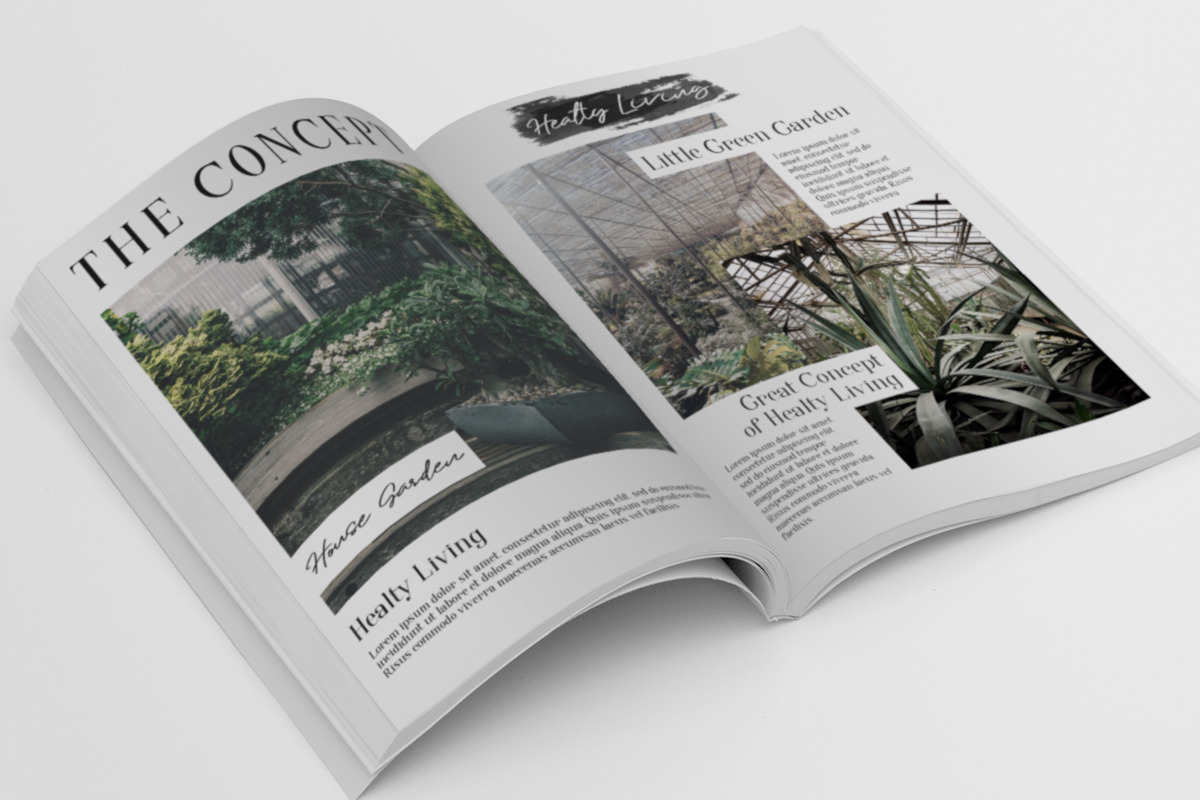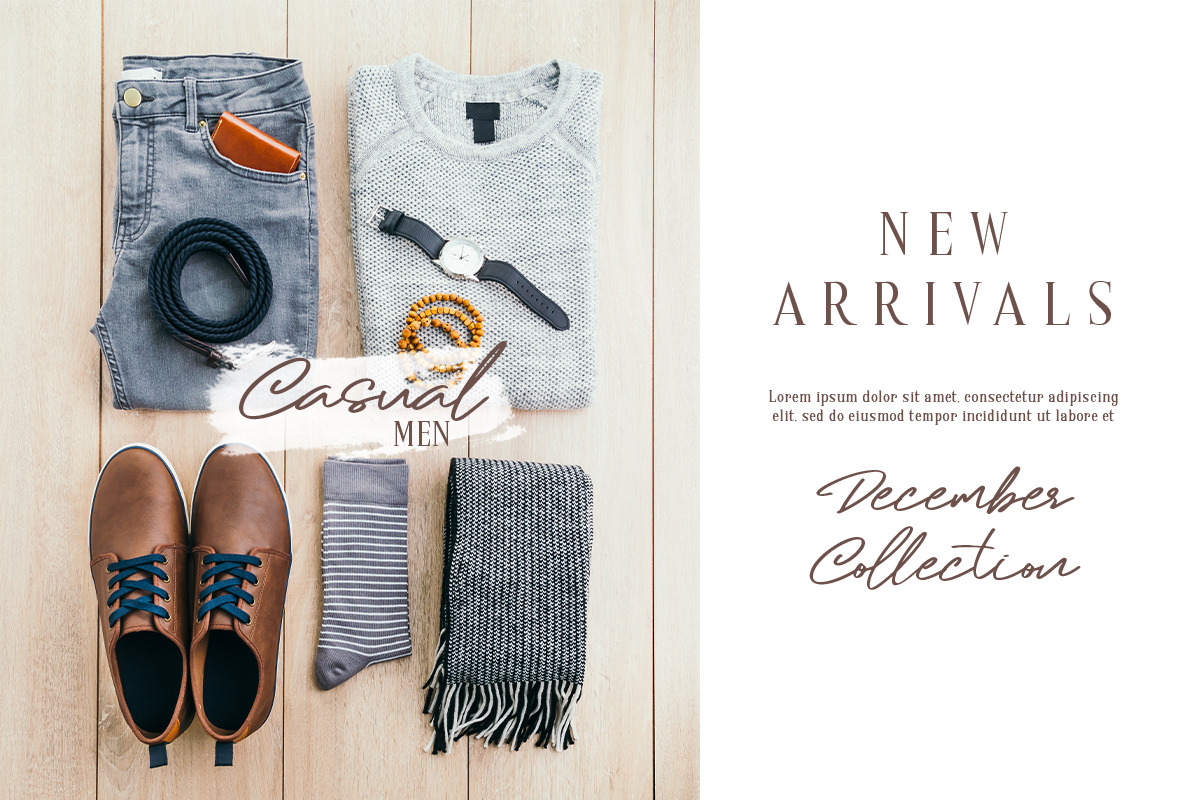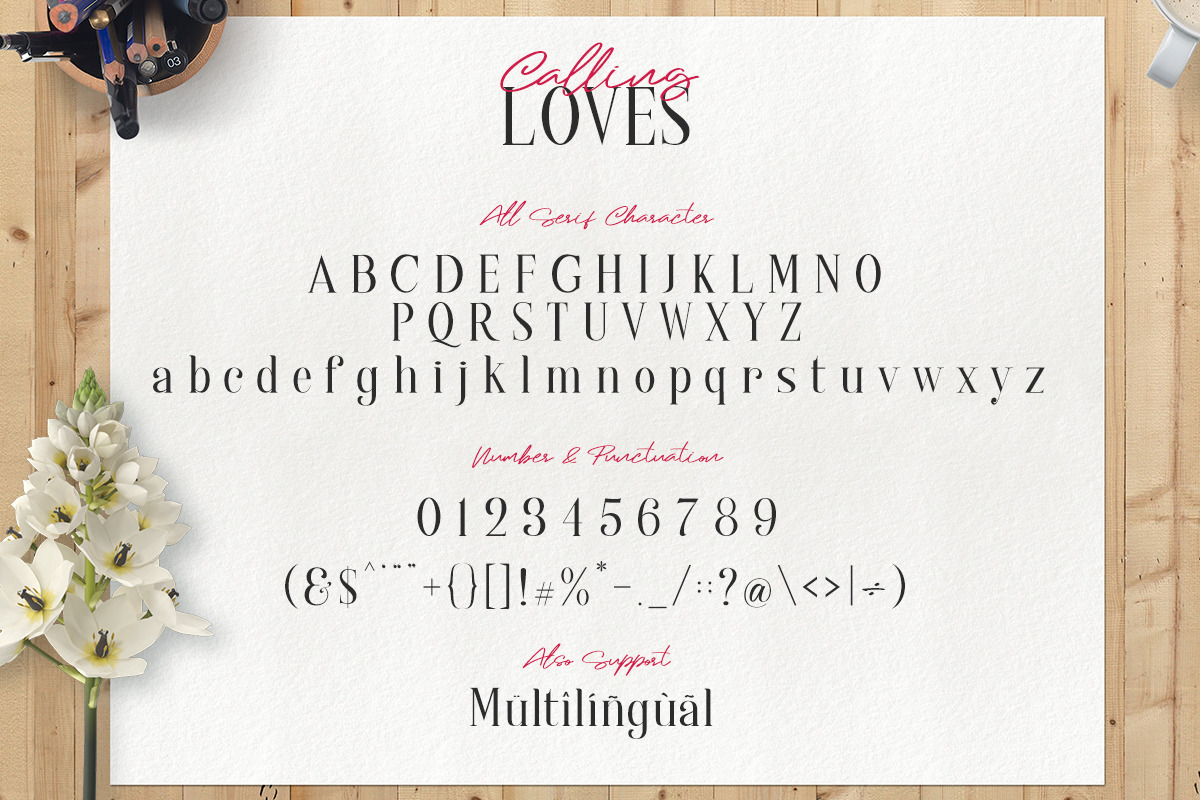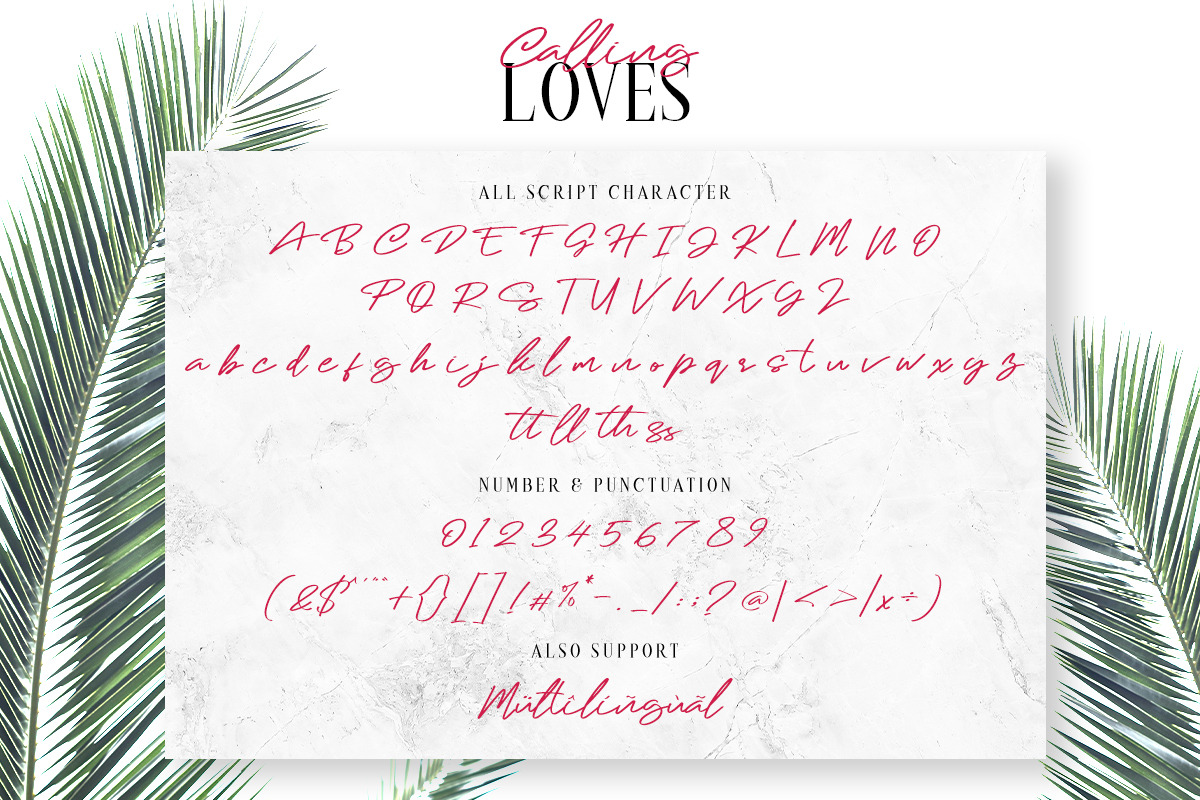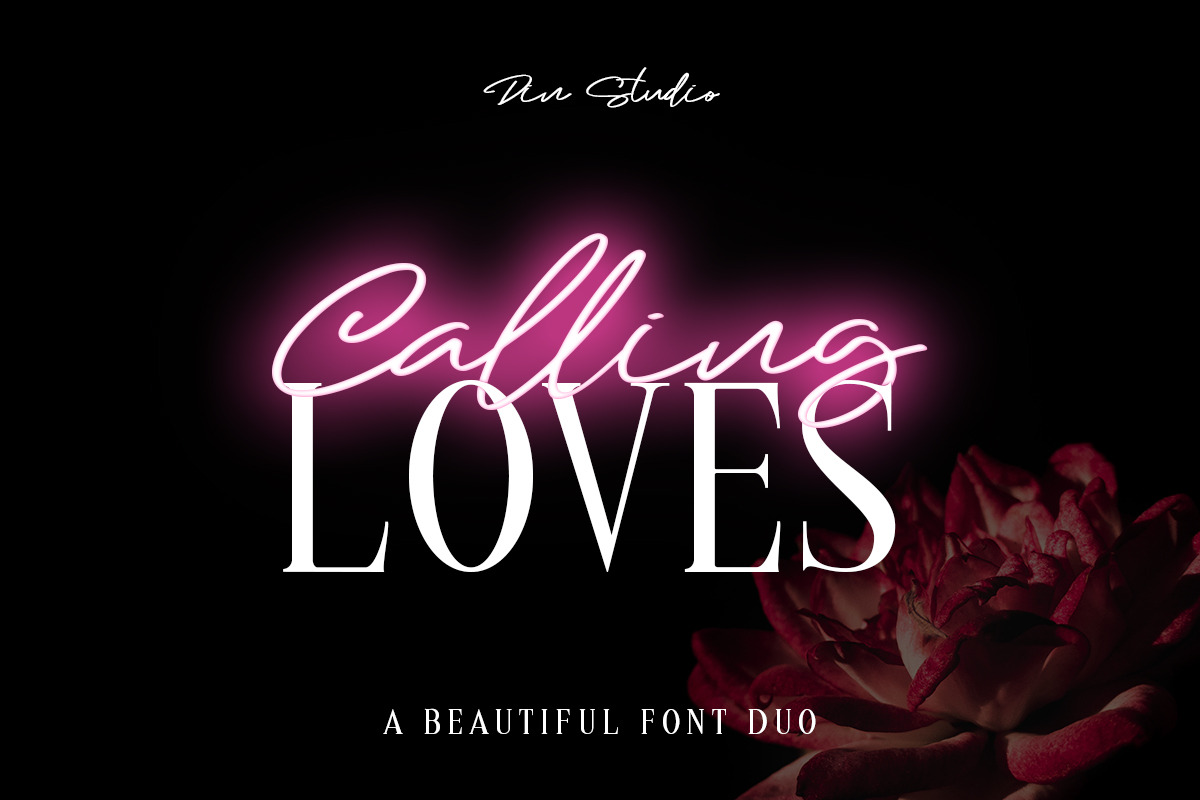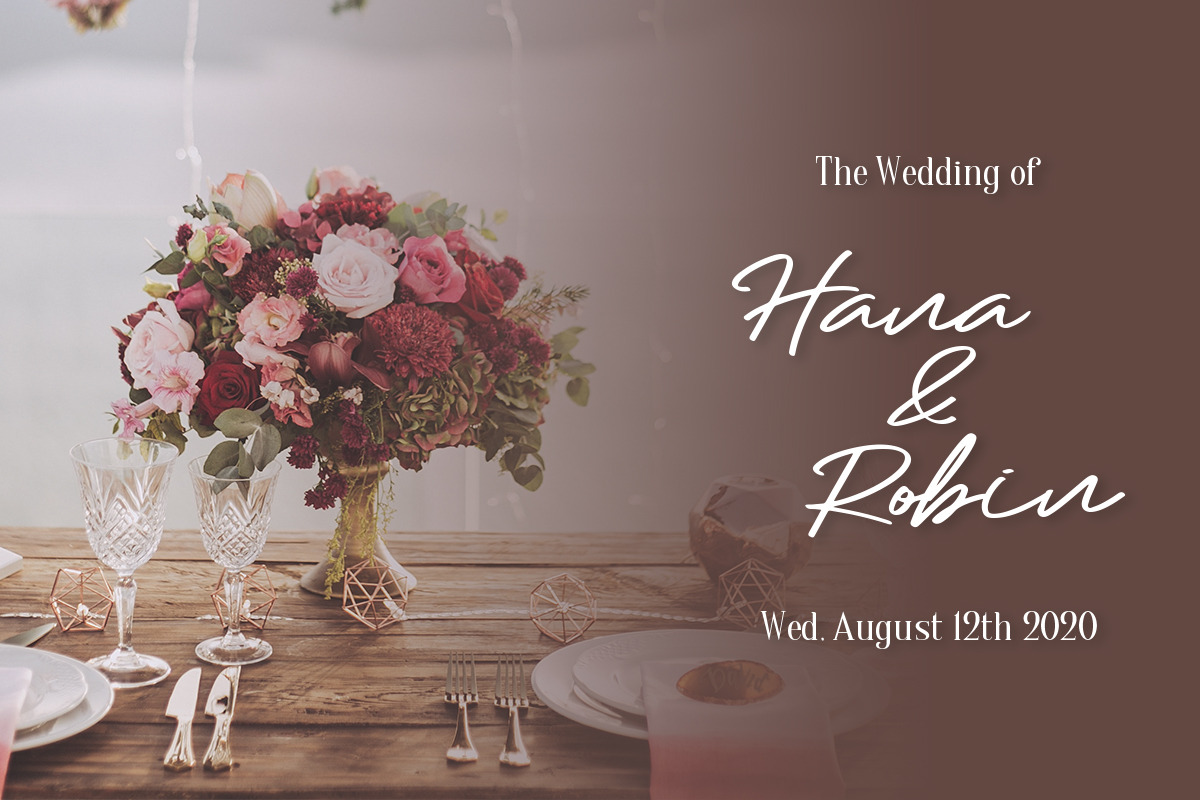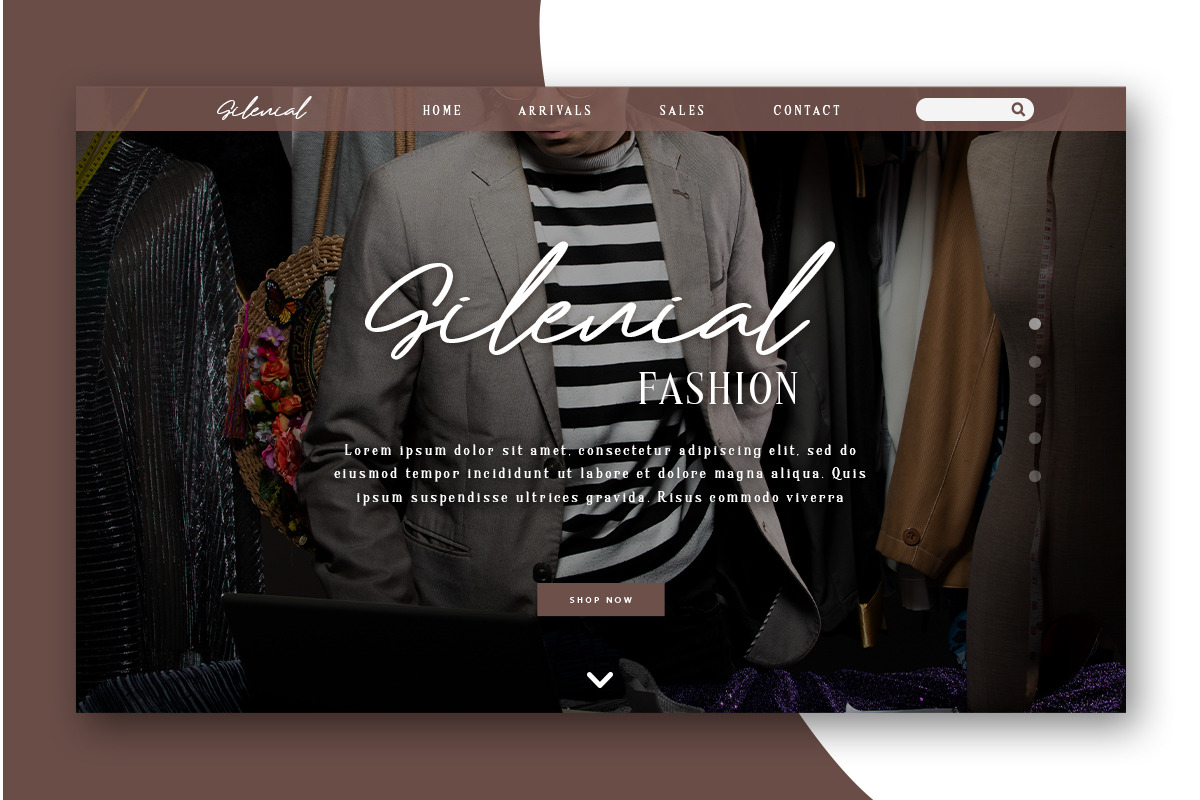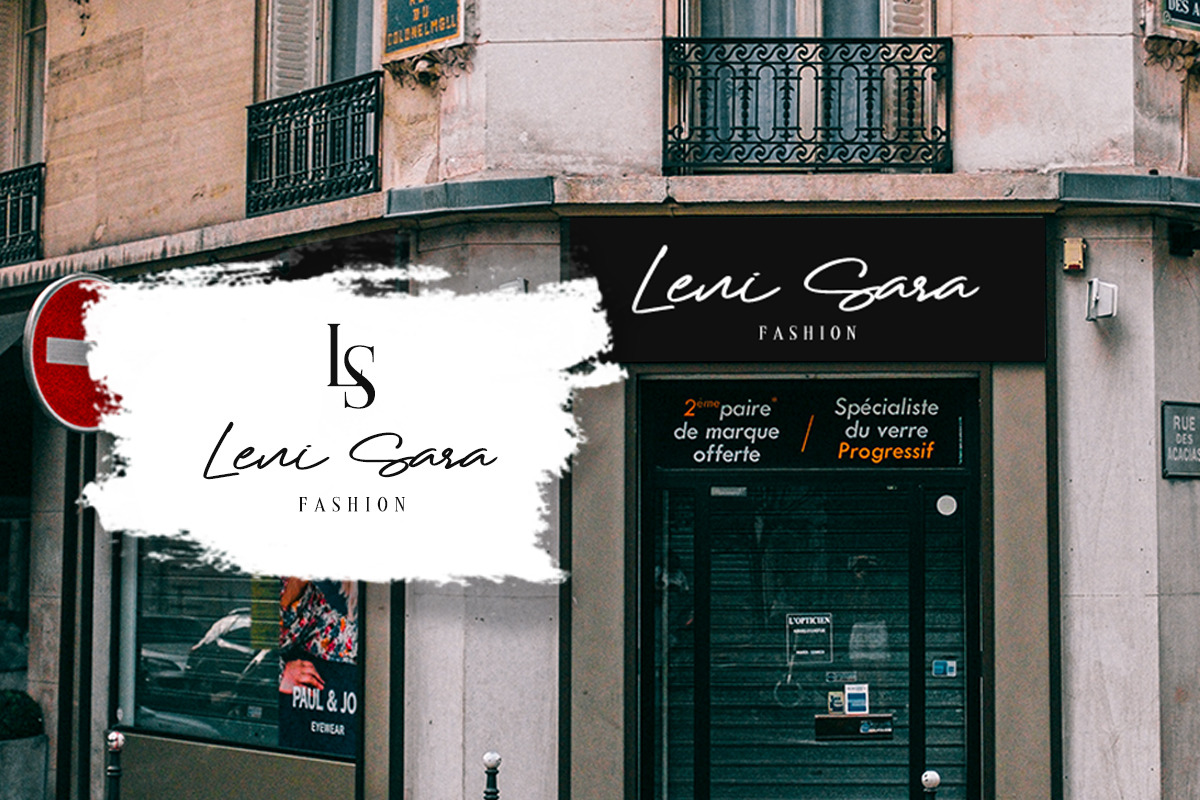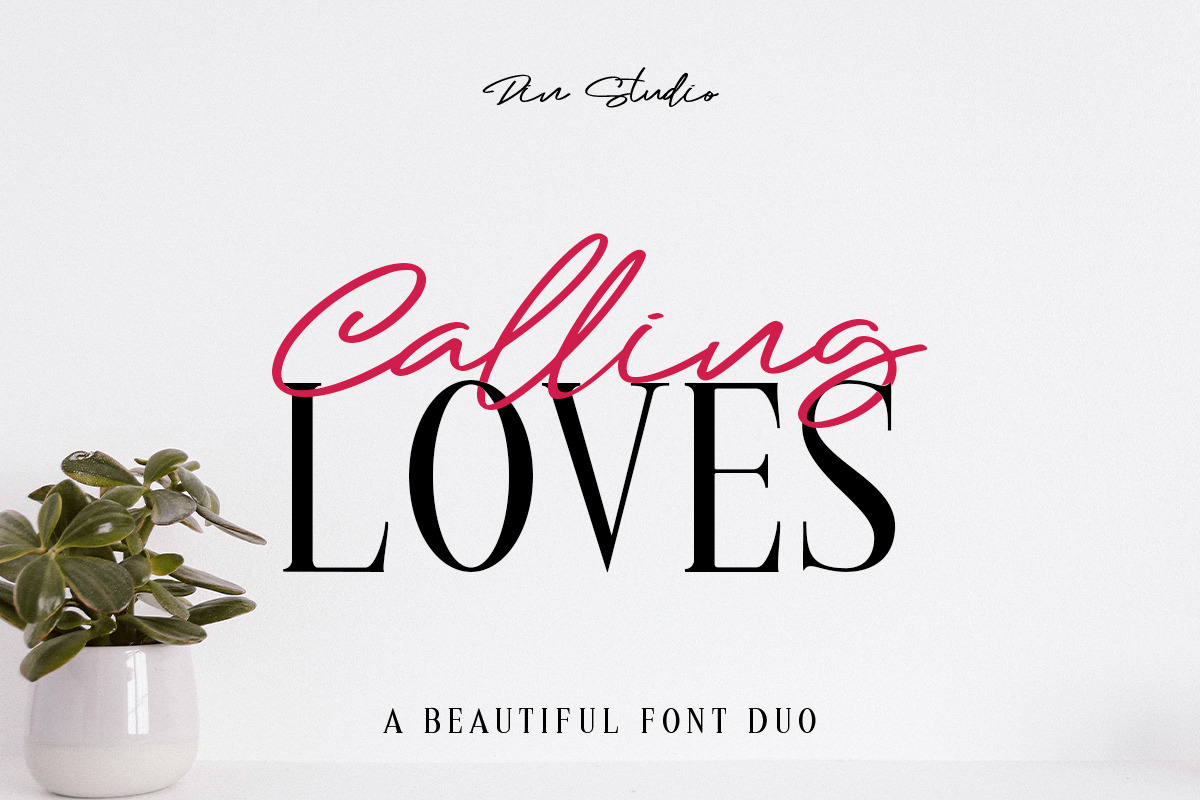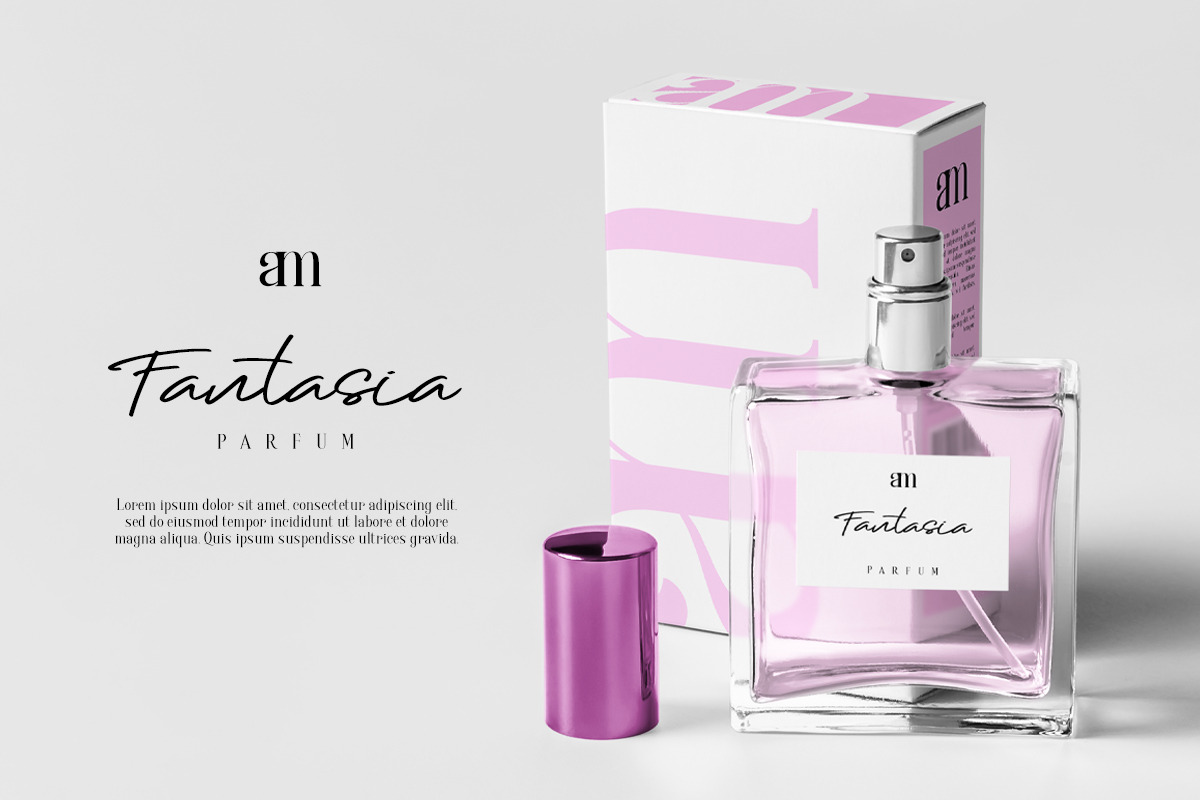
Calling Loves - Font Duo
Say hello to Calling Loves, Calling Loves is a beautiful font duo, designed with modern style. The combination of script and modern serif will make your design more beautiful. It's suitable for various designs, such as posters, banners, logos, book covers, headings, printed products, merchandise, social media, and more. Find out more ways to use this font by taking a look at the font preview.
- Ligatures (in script fonts)